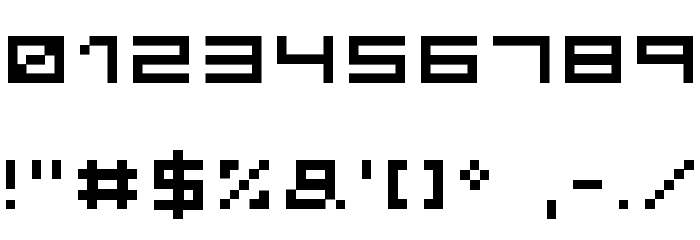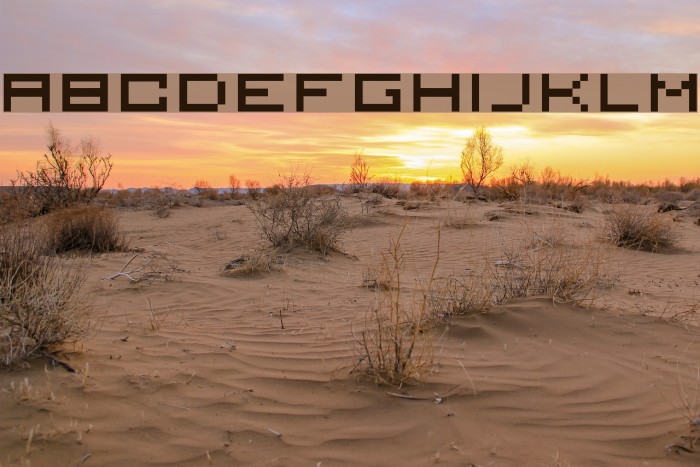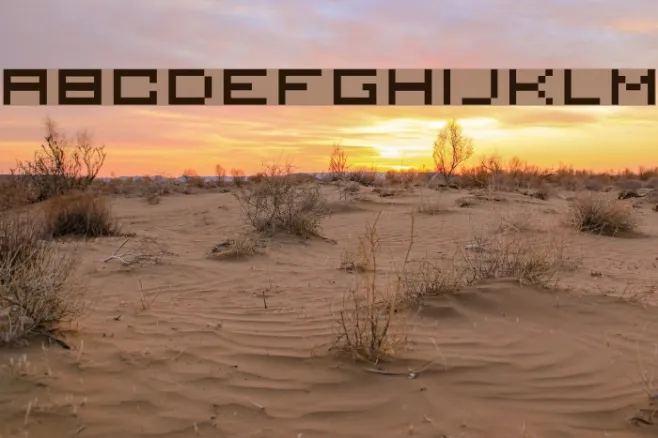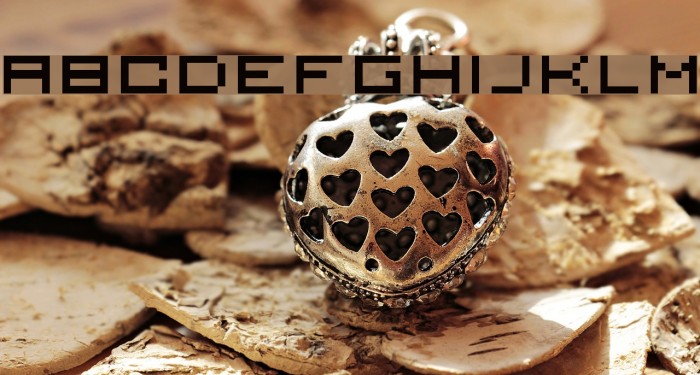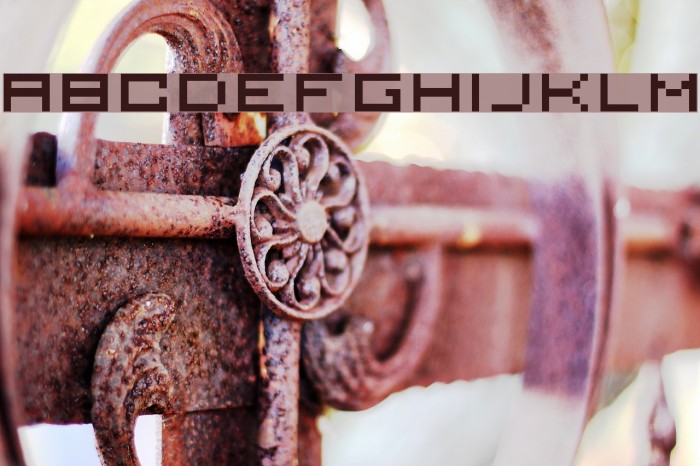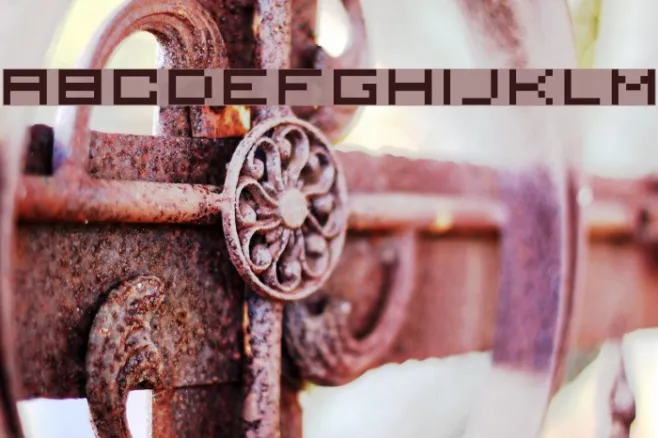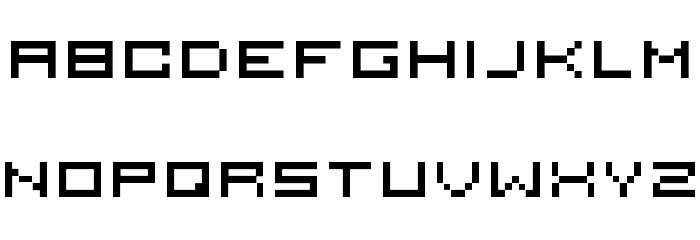
serious3 Font
serious3 Description
This font features a pixelated, blocky design reminiscent of early digital displays and video games. Each character is constructed with a grid-like precision, giving it a distinctly retro and technological feel. The uppercase and lowercase letters maintain a consistent height, contributing to a uniform appearance. Numbers and special characters follow the same pixelated style, ensuring a cohesive look across all glyphs. The font's simplicity and geometric structure make it highly legible, even at smaller sizes, while its unique style adds a nostalgic charm.
Overall StyleRetro, Digital
Use CaseLogos, Headlines, Digital displays
Proposed ProjectsIdeal for retro-themed designs, video game graphics, digital art projects, and tech-inspired branding.